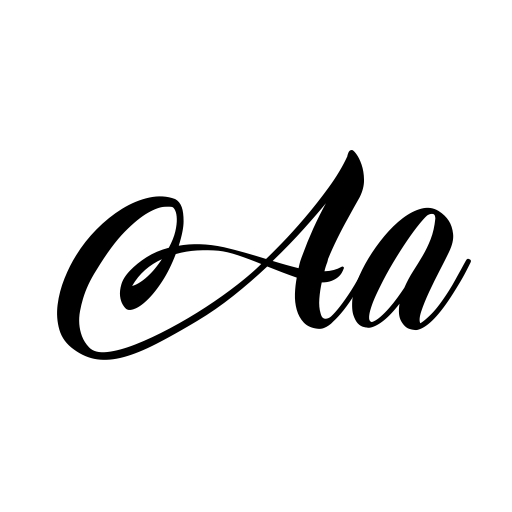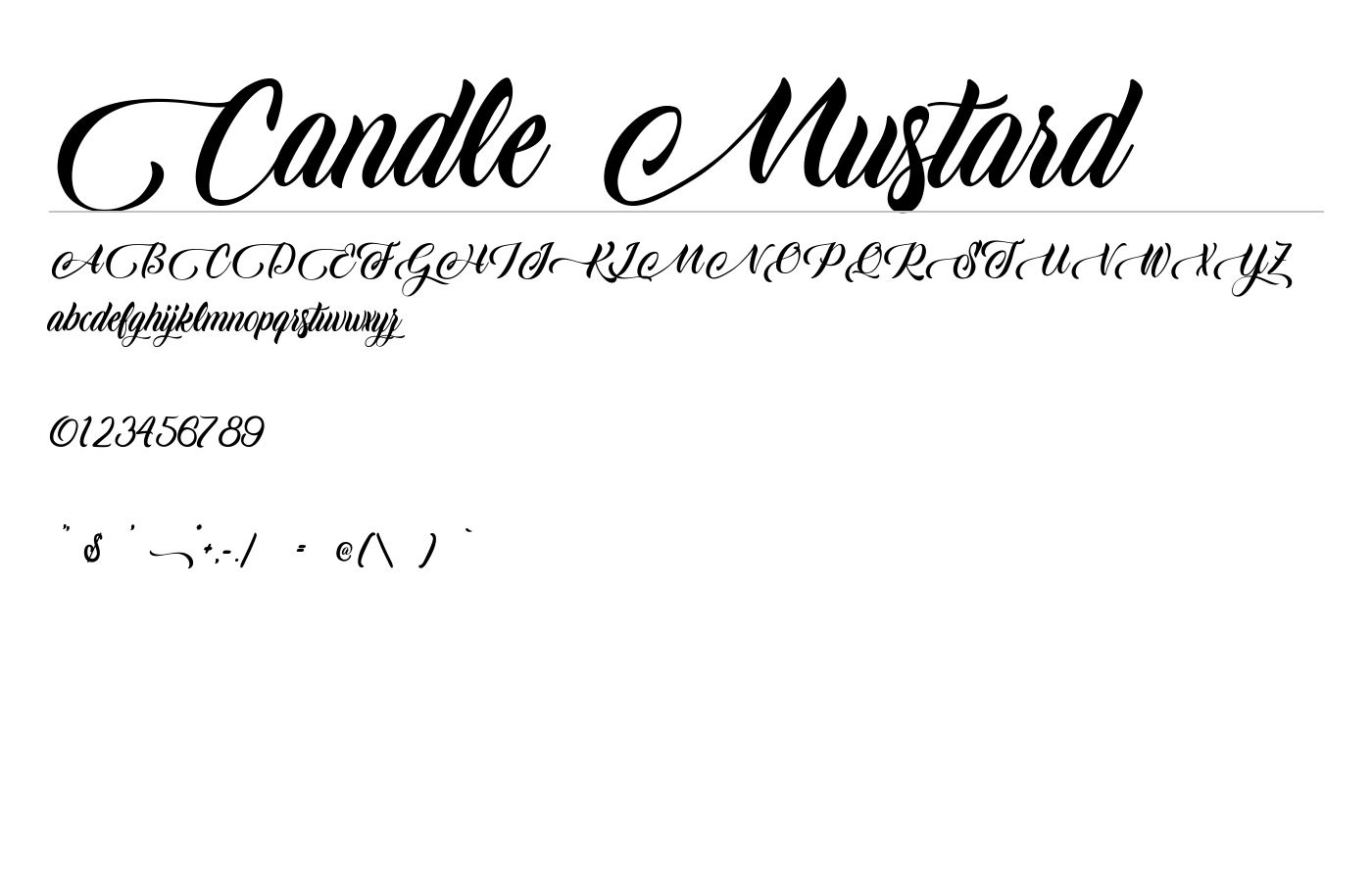
Candle Mustard is an elegant script font characterized by its flowing, calligraphic strokes and high contrast between thick and thin lines. With its graceful swashes and delicate letterforms, it evokes a refined, vintage charm that is perfect for invitations, branding, and luxury packaging. This font shines in decorative uses where a sophisticated, artistic touch is desired.
Candle Mustard Font
About Candle Mustard Font
| Font family | Candle Mustard Font |
| Designer | Typhoon Type - Suthi Srisopha |